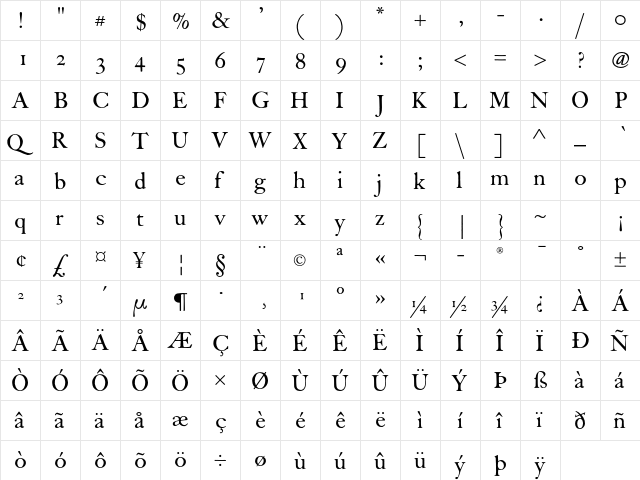
FCaslon Thirty ITC Std Regular
| Designer | Justin Howes |
Design Context for FCaslon Thirty ITC Std Typeface
FCaslon Thirty ITC Std offers clean, dependable letterforms without strong stylistic allegiance, making it a practical choice for designers who need flexibility.